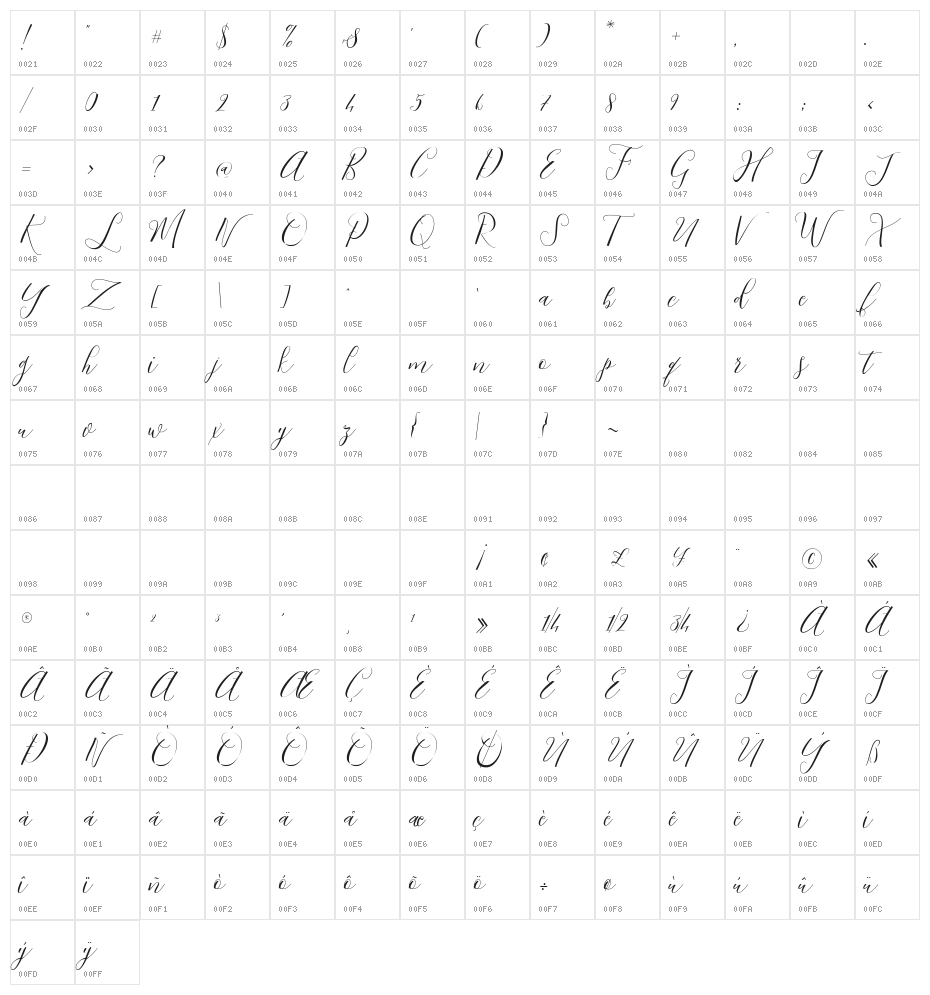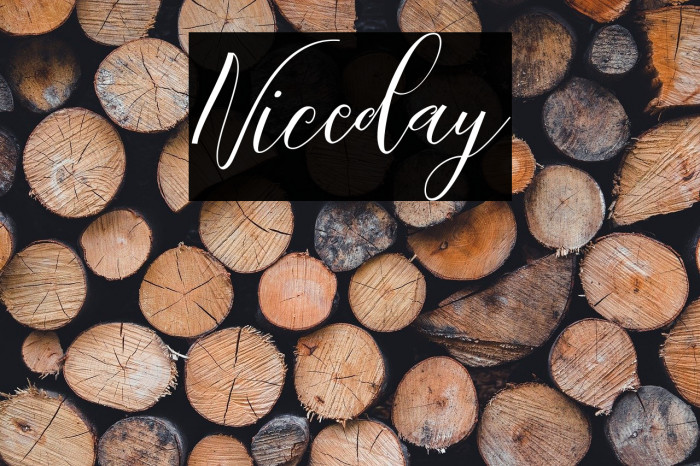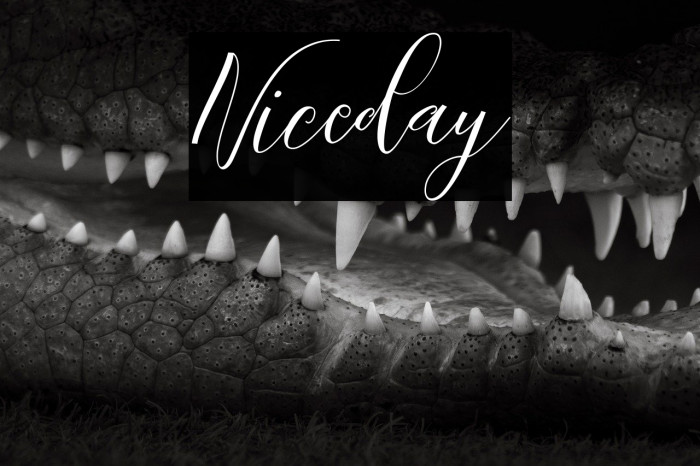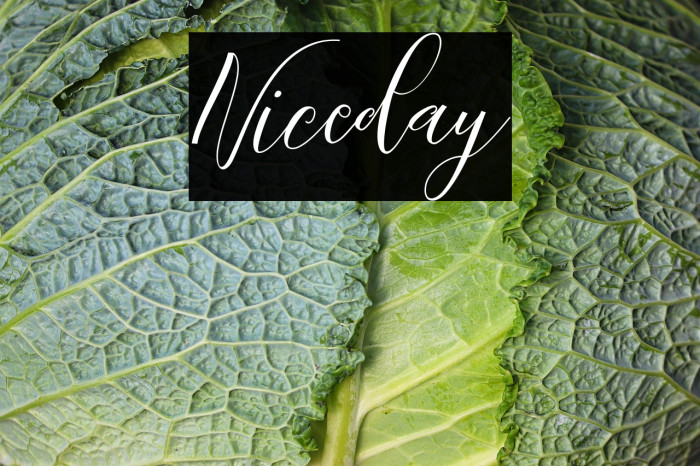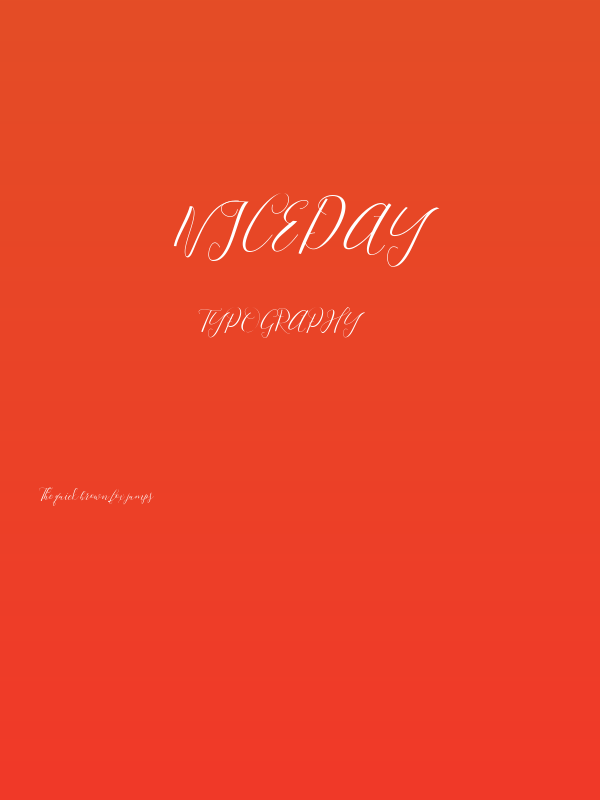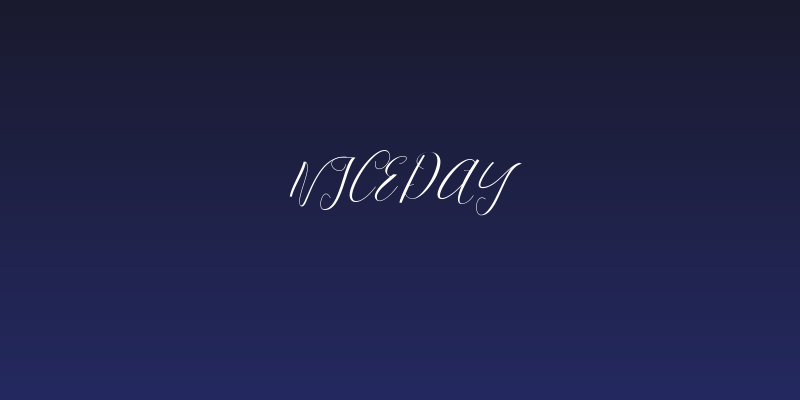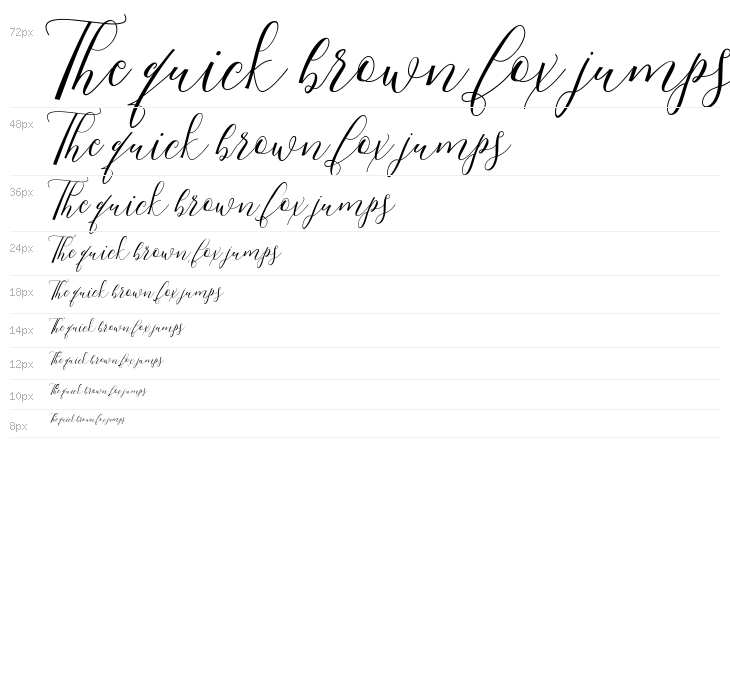
Niceday Font
Niceday Description
This elegant script font features flowing, cursive letters with a distinct calligraphic style. The uppercase letters are characterized by their sweeping curves and loops, giving a sense of movement and grace. The lowercase letters maintain a consistent style, with elongated ascenders and descenders that enhance the font's fluidity. The numerals are designed with the same attention to detail, ensuring they blend seamlessly with the alphabet. Special characters are included, maintaining the font's overall aesthetic. This font is perfect for projects that require a touch of sophistication and elegance.
| Overall Style | Elegant, Calligraphic |
| Use Case | Logos, Invitations, Decorative text |
| Proposed Projects | Ideal for wedding invitations, elegant branding, greeting cards, and upscale packaging. |